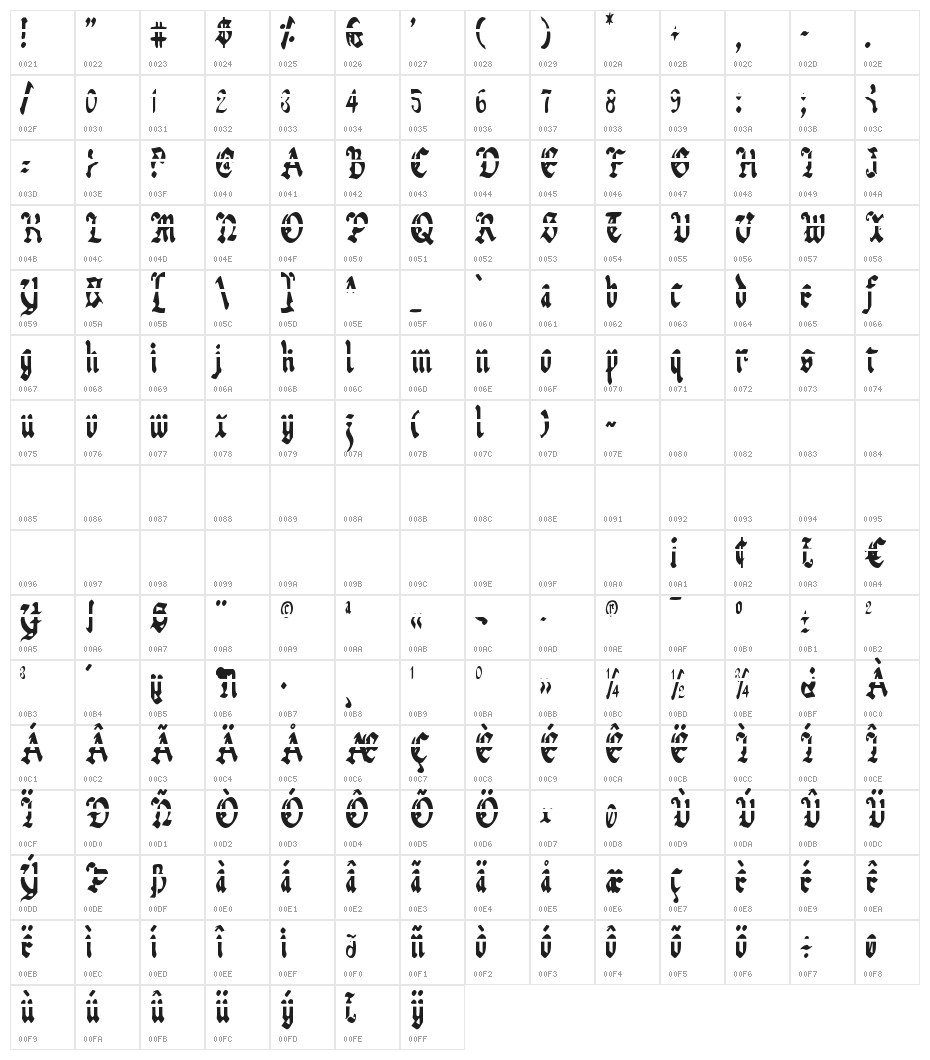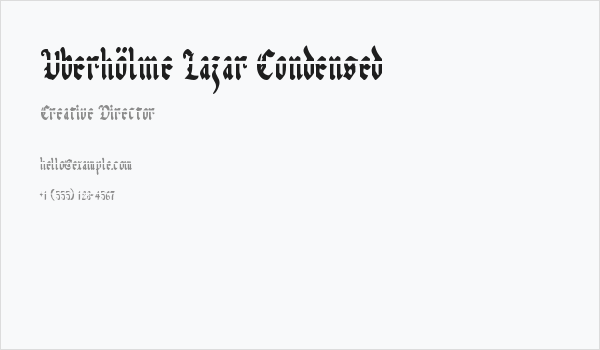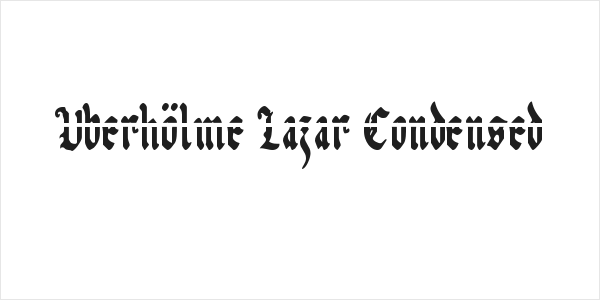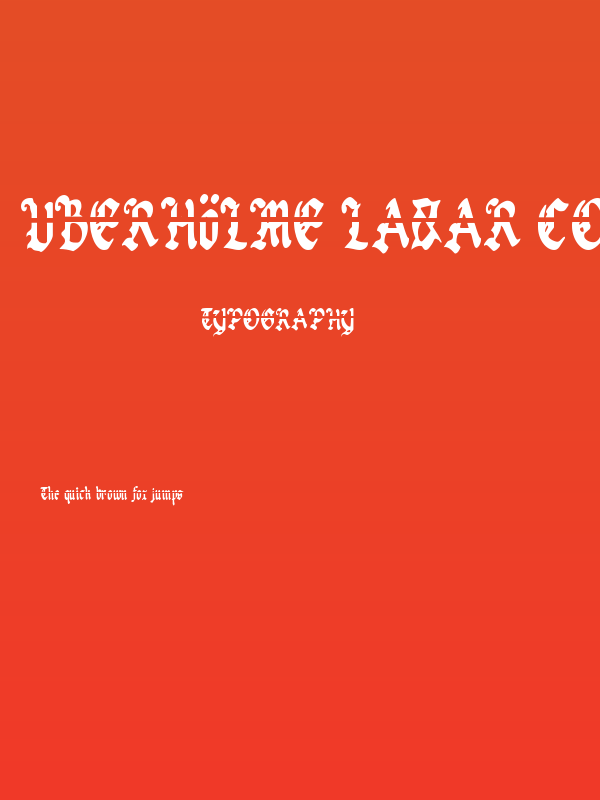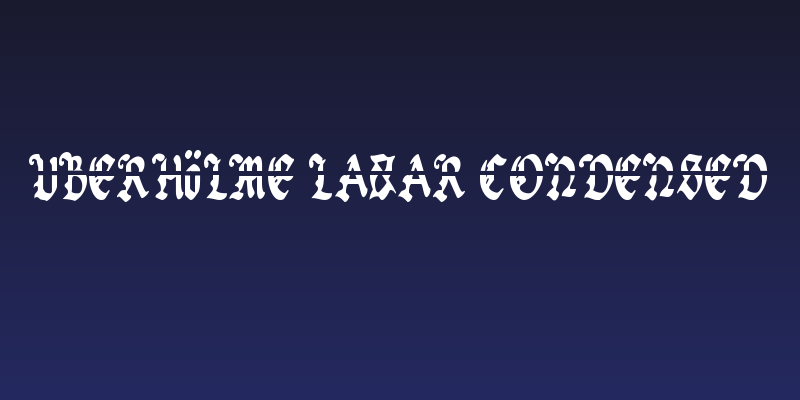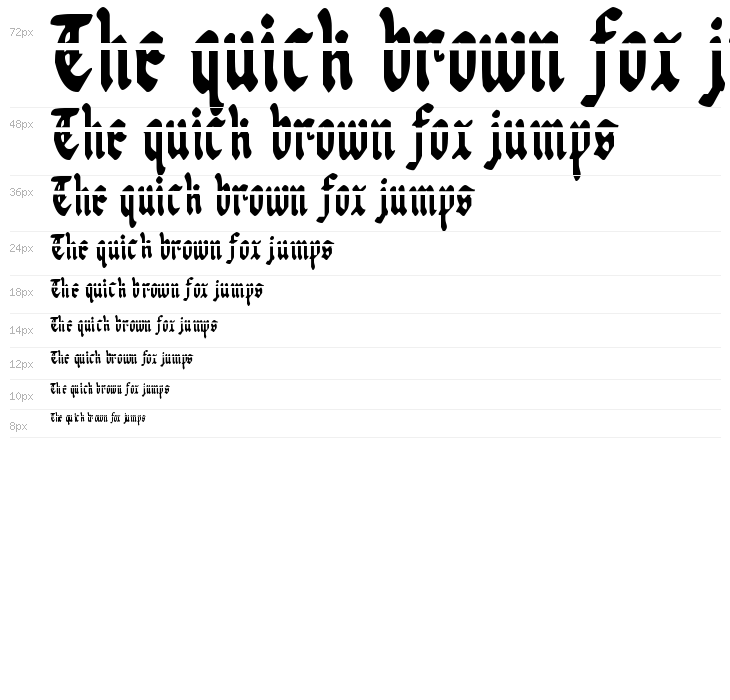
Uberhölme Lazar Condensed Font
Uberhölme Lazar Condensed Description
This font is a striking example of a Blackletter style, characterized by its intricate and bold letterforms. The uppercase and lowercase letters exhibit a traditional Gothic influence with sharp, angular lines and ornate detailing. The condensed nature of the font allows for a compact and efficient use of space, making it ideal for creating impactful designs. The numbers and special characters maintain the same stylistic elements, ensuring consistency across all text. This font's dramatic appearance makes it suitable for projects that require a historical or medieval aesthetic.
| Use Case | Headlines, Logos, Decorative text |
| Proposed Projects | Ideal for historical-themed designs, posters, book covers, and branding that requires a medieval or Gothic touch. |